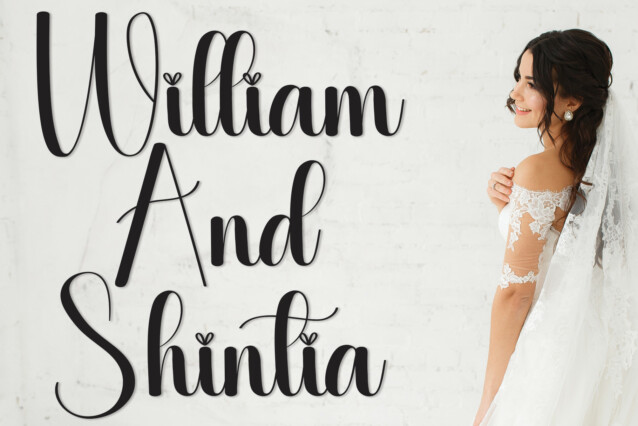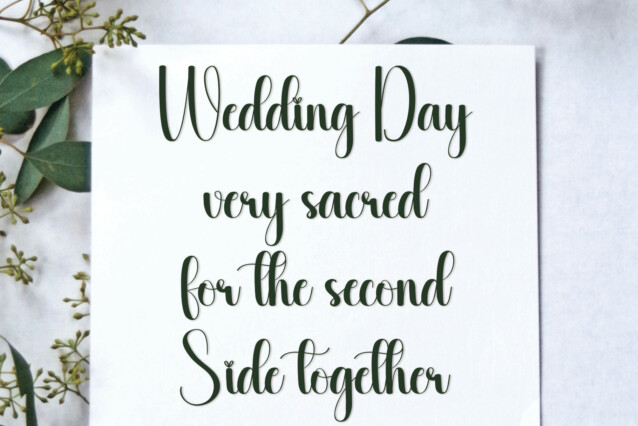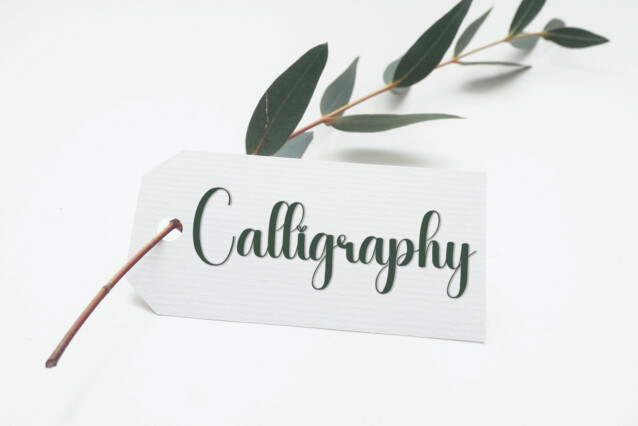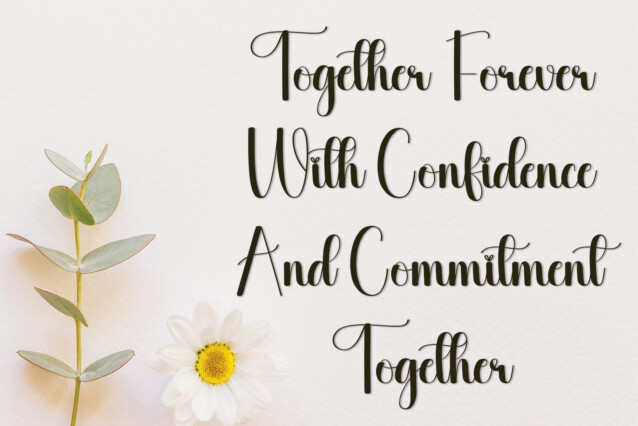
Assignment Script Font
Assignment Script Font is a sweet and cursive handwritten font. This gentle font will look gorgeous on a variety of design ideas. It will add a joyful and romantic touch to each of your projects!